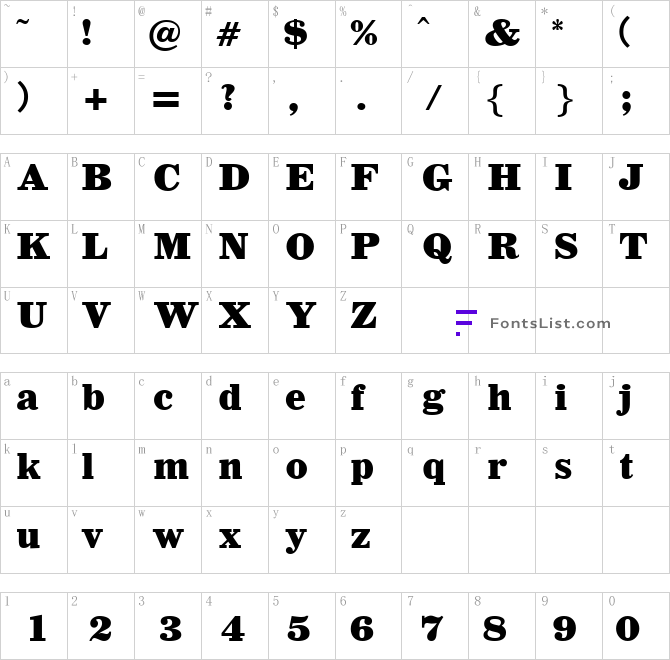
- Font Name:Antinori
Antinori-Regular.ttf is a very beautiful artistic font, Antinori-Regular.ttf is widely used in the design and printing of various books and pictures,Antinori-Regular.ttf has a strong visual impact,Antinori-Regular.ttf is a commonly used font in newspapers, magazines and books, and is used in posters, e-commerce Poster design, store design, logo design, font design and other fields.Antinori-Regular.